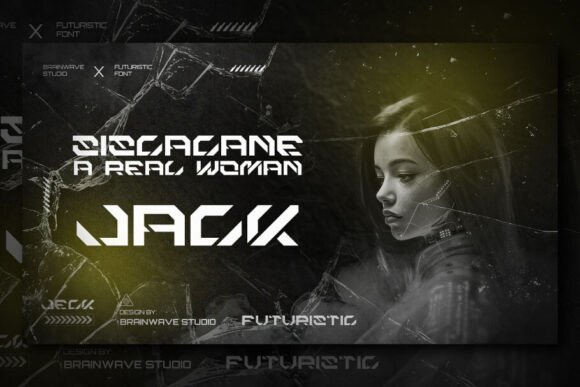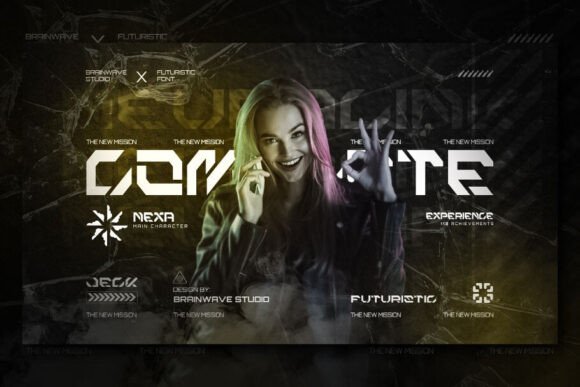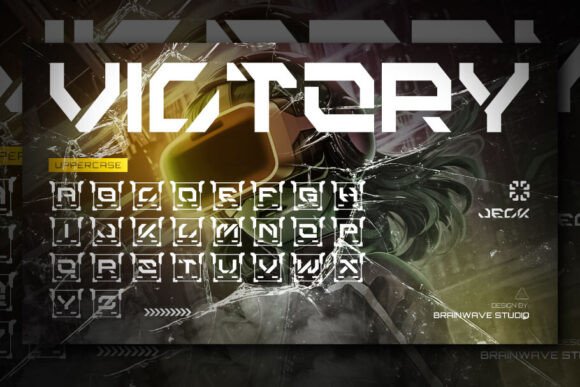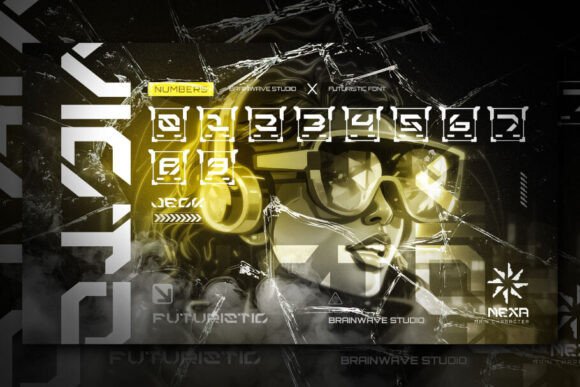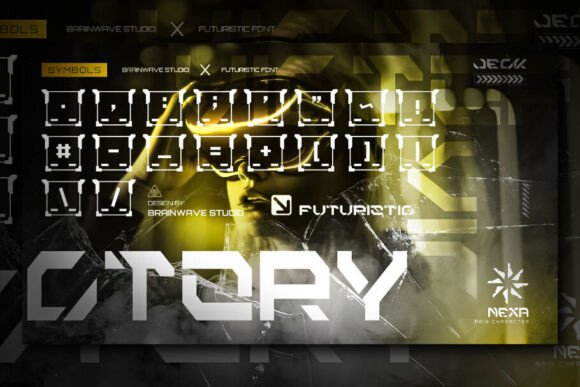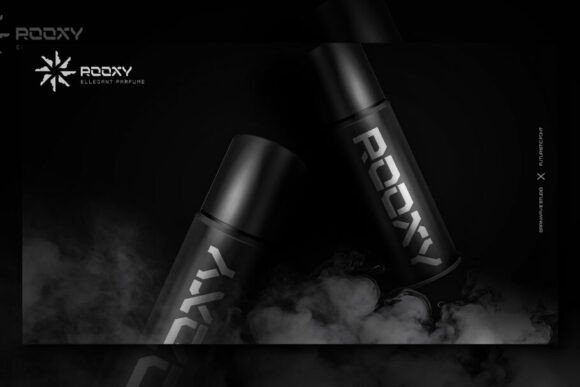
Introduction to Jeck Font
As you sit in front of your computer, staring at a blank canvas, waiting for that spark of creativity to ignite, you might be wondering what’s missing from your design. Is it the perfect font to elevate your project and transport your audience to a world of innovation and technology? Look no further than the Jeck Font, a cutting-edge typeface that embodies the fusion of futuristic style and cyberpunk essence.
With its sharp, precise design and modern sophistication, the Jeck Font is a valuable asset for any designer looking to create bold, edgy, and energy-filled design looks. Whether you’re working on a high-tech branding project or a futuristic digital media campaign, this font is sure to deliver a high-quality impression that will leave a lasting impact on your audience.
Key Features of Jeck Font
- High-quality, professional font design suitable for creative projects and design resources.
- Unique, handcrafted design elements that set it apart from other fonts, adding a touch of personality to any creative project.
- Designed to be highly legible and versatile, making it suitable for a wide range of applications, from headings to body text.
Honest Review: Jeck Font
As a designer, I’m always on the lookout for new design resources to elevate my creative projects. Recently, I had the chance to try out the Jeck Font, and I’m here to share my honest thoughts.
- ✨ High-quality design: The Jeck Font boasts a beautiful, modern aesthetic that’s perfect for a variety of design projects.
- ⚠️ Limited font styles: While the Jeck Font is a great addition to any design arsenal, it’s limited to a single font style, which may not be ideal for designers who need a more comprehensive font family.
- ⚠️ Not ideal for body text: Due to its modern aesthetic, the Jeck Font may not be the best choice for body text, as it can be difficult to read at smaller font sizes.
Overall, I think the Jeck Font is a great design resource for designers who need a high-quality, modern font for their creative projects. While it has its limitations, it’s a great addition to any design arsenal, especially considering its free download option.
Jeck Font is suitable for a variety of creative projects, including logos, business cards, social media graphics, and presentations. Its high-quality design and transparent background make it an ideal choice for designers and non-designers alike.